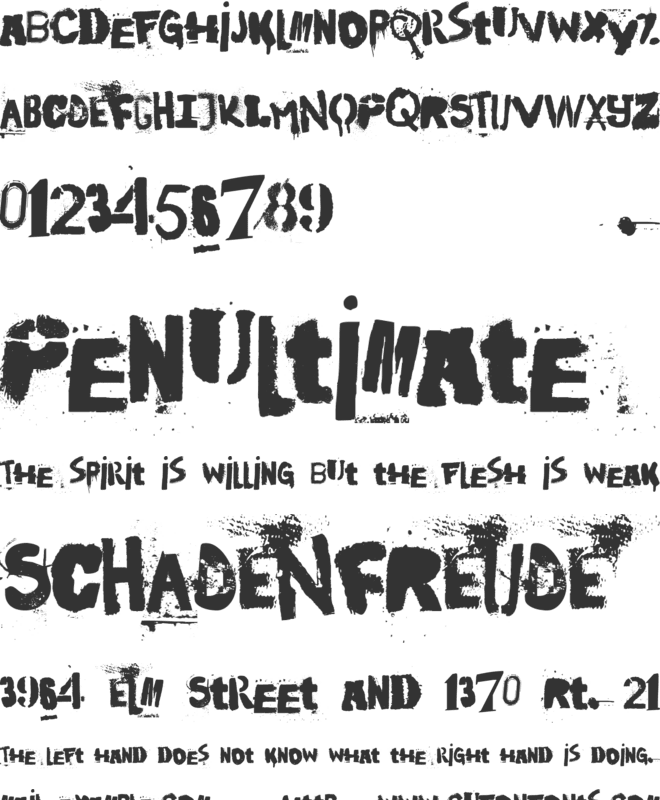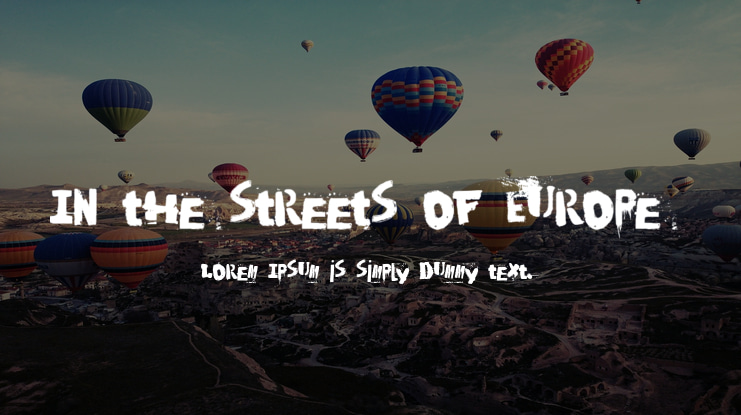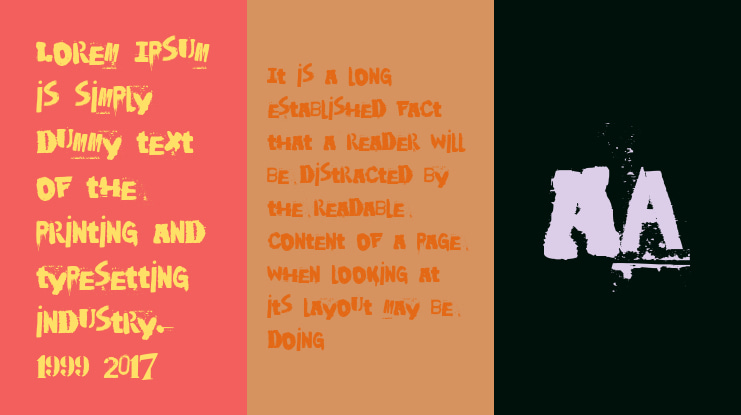
In the streets of Europe Font
Frédéric Rich
"In the streets of Europe" is inspired by many trips all across Europe. Letters are made from graffiti in Liverpool, Madrid, Lisbon, Sofia, Bucharest and Budapest, demonstrations in Barcelona and Thessaloniki, cars in Sibiu, trains in Belgrade, and a lot more.